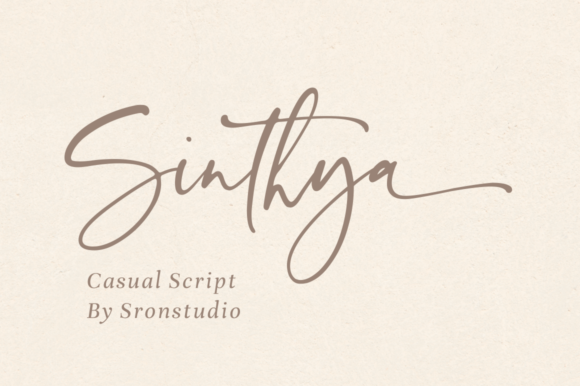
Indulge in the beauty of Sinthya Font, a captivating calligraphy script that emanates elegance and charm. This mesmerizing creation from Sronstudio beckons you to embrace the art of handwritten finesse, adding a touch of sophistication and personality to your design projects.
Step into a world of refined typography where every letter dances with grace and fluidity. Sinthya's enchanting curves and delicate strokes evoke a sense of timeless elegance, making it the perfect choice for crafting stunning logos that speak volumes about your brand's identity.
Unleash your creativity and let Sinthya's versatile nature guide you through a myriad of design possibilities. From sophisticated wedding invitations to enchanting branding materials, this font adapts seamlessly, adding a touch of elegance to every project it graces.
With Sinthya, you hold the key to unlocking a world of visual artistry. Its natural handwritten style lends a personal touch to your designs, evoking a sense of authenticity and connection with your audience. Prepare to captivate their hearts and leave a lasting impression with every letter you craft.
Immerse yourself in the world of Sinthya, where elegance and creativity intertwine. This exceptional script font beckons you to embrace the beauty of handwritten artistry, transforming your design projects into masterpieces that leave a lasting impression. Discover the endless possibilities that await you with Sinthya Font.